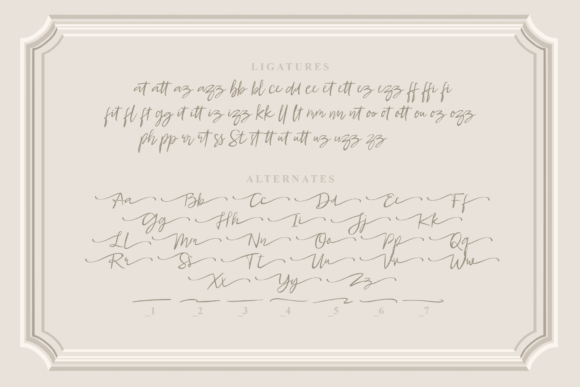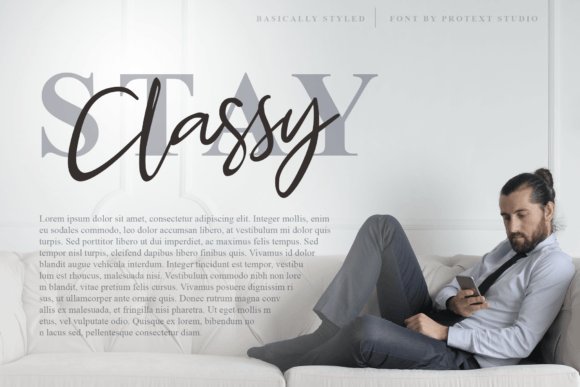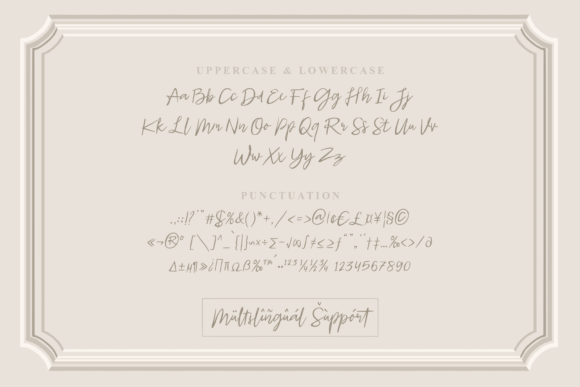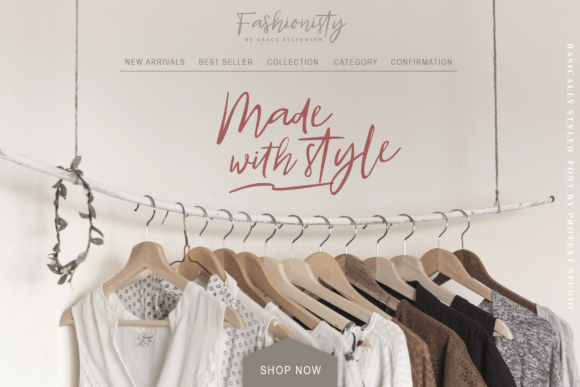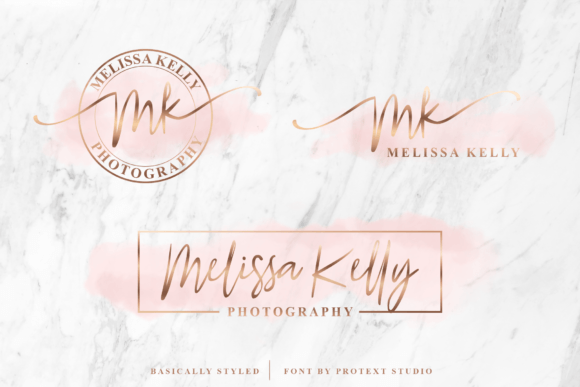
The Handwritten Touch That Elevates Your Design
Have you ever stared at a blank sheet of paper, waiting for the perfect font to bring your creative vision to life? I know I have. It’s that moment when the right typography can make all the difference between a design that’s just okay and one that truly speaks to the heart. For me, that moment came when I discovered the Basically Styled Font.
This elegant font is more than just a pretty face – it’s a versatile tool that can add a handwritten touch to everything from wedding invitations to logos and merchandise. With its PUA encoding, designers can access all of the glyphs and swashes with ease, giving them the freedom to get creative and push the boundaries of their designs.
Basically Styled Font Key Features
- Unique Characteristic: Features a unique, modern design with subtle flair and elegance
Designer Review: Basically Styled Font
I recently had the chance to work with Basically Styled Font, and I must say it’s been a mixed bag for me.
- The font has a unique and quirky feel to it, which can be great for designers looking to add some personality to their projects.
- It’s incredibly easy to read, even at smaller font sizes, making it a great choice for body text or captions.
- The font family is relatively large, with a good range of weights and styles to choose from.
- The font’s unique style can also make it feel a bit too playful or juvenile in certain contexts.
- The font’s weight distribution can be a bit uneven at times, which can make it harder to read in certain situations.
Overall, I’d say Basically Styled Font is a solid choice for designers who are looking for a unique and quirky font to add some personality to their projects. However, it may not be the best choice for every project, and designers should carefully consider the font’s limitations before making a decision.
Alternatives to Basically Styled Font for Designers
Open Sans is a clean, modern sans-serif font that works well for digital products, websites, and apps. It’s highly legible and comes in a range of weights and styles. Use Open Sans when you need a neutral, user-friendly font that won’t distract from your content. Compared to Basically Styled Font, Open Sans is more minimalist and versatile, making it suitable for a wider range of design projects.
Montserrat is a geometric sans-serif font inspired by the urban environment of Buenos Aires. It’s perfect for projects that require a strong, modern feel, such as tech startups or fashion brands. Use Montserrat when you need a font that conveys a sense of sophistication and style. Compared to Basically Styled Font, Montserrat has a more dramatic, architectural feel, making it ideal for projects that require a bold statement.
Lato is a modern sans-serif font that’s highly legible and versatile. It’s perfect for projects that require a clean, elegant feel, such as corporate websites or magazines. Use Lato when you need a font that’s both professional and approachable. Compared to Basically Styled Font, Lato is more refined and sophisticated, making it suitable for projects that require a high level of polish.